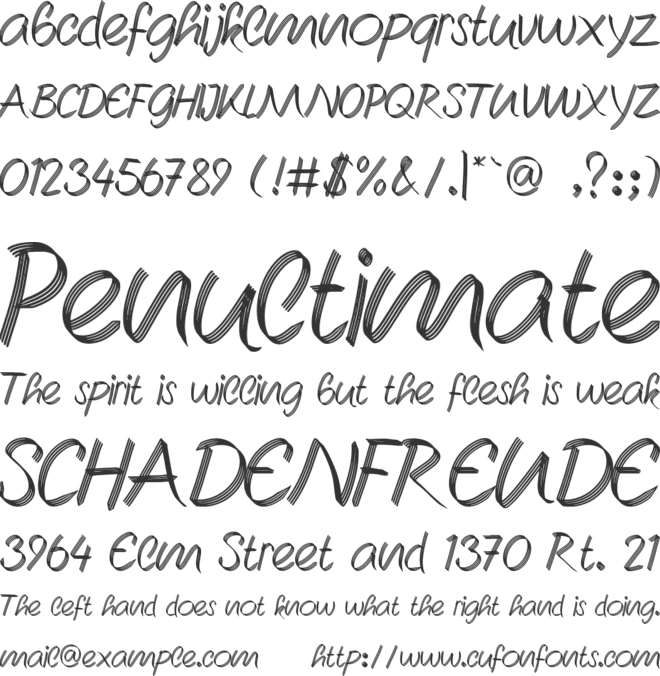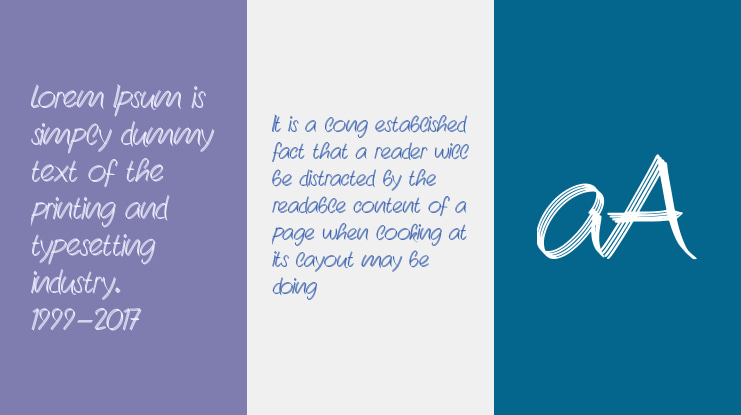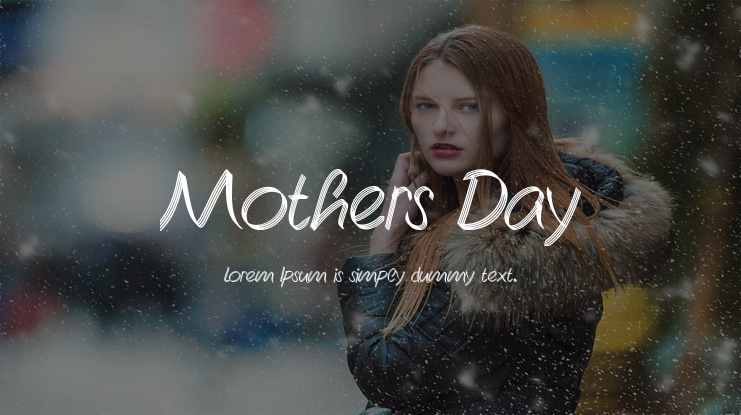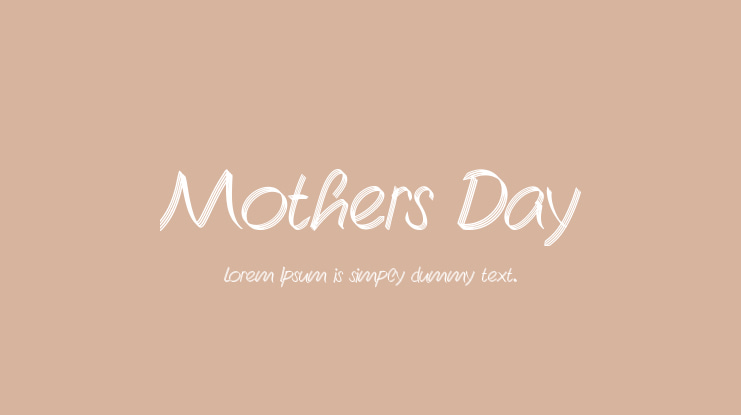
Mothers Day Font
Mother’s Day is a chic, refined script font that emanates sophistication and elegance. Its stylish alternates and ligatures make this font the perfect match for any project.